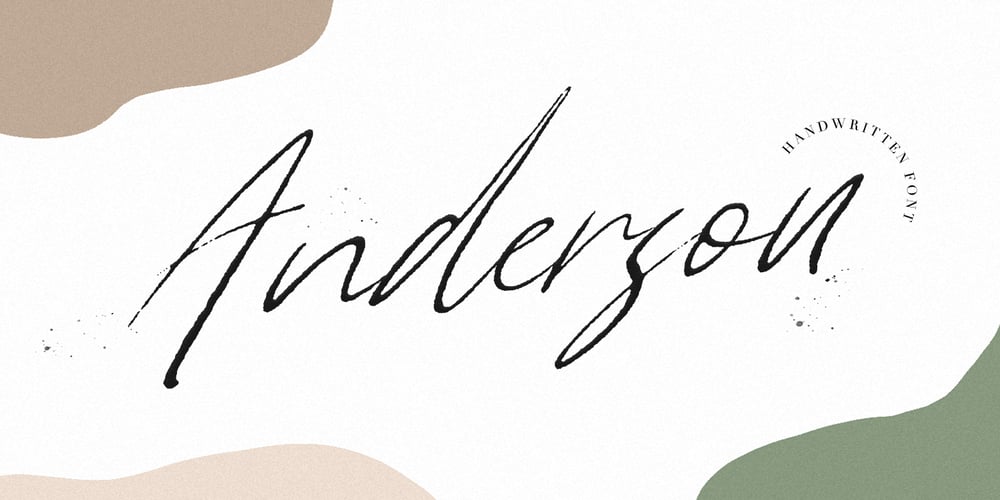
Anderson Font Family was designed by Pavel Larin and published by Larin Type Co. Anderson contains 1 styles and family package options. Anderson is a stylish and unique handwritten font that is easy to remember. It’s great for branding, photo overlays, book covers, magazines, watermarks, business cards, invitations, and much more!